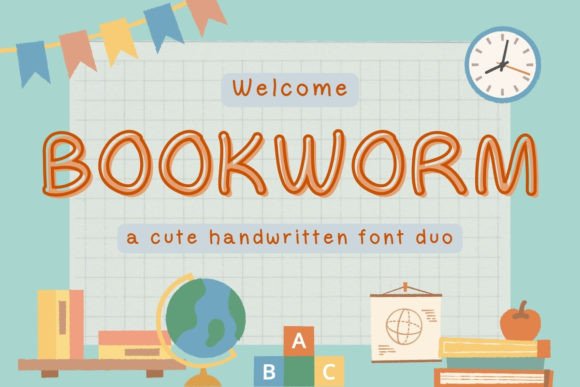
Introducing Bookworm Duo Font: The Playful and Childlike Font for Whimsical Designs
In the world of typography, fonts play a crucial role in conveying the tone and personality of a design. When it comes to creating engaging and youthful designs, the right font can make all the difference. This is where Bookworm Duo Font comes in – a playful and childlike font that captures the essence of school days and youthful fun. In this article, we’ll explore the features and benefits of Bookworm Duo Font, and why it’s the perfect choice for children’s books, educational materials, and playful designs.
The Inspiration Behind Bookworm Duo Font
Bookworm Duo Font is inspired by the nostalgia of school days and the joy of learning. The font’s creator aimed to design a typeface that would evoke a sense of playfulness and whimsy, reminiscent of childhood memories. The result is a font that is both cute and engaging, perfect for designs that require a touch of youthful energy.
Key Features of Bookworm Duo Font
So, what makes Bookworm Duo Font so special? Here are some of its key features:
- Playful and childlike design: Bookworm Duo Font boasts a playful and childlike design that is sure to capture the attention of your audience.
- Handwritten style: The font features a handwritten style that gives it a personal and organic feel.
- Whimsical and engaging: Bookworm Duo Font is perfect for designs that require a touch of whimsy and playfulness.
- Perfect for children’s books and educational materials: The font’s design makes it an excellent choice for children’s books, educational materials, and playful designs.
Use Cases for Bookworm Duo Font
Bookworm Duo Font is a versatile font that can be used in a variety of design projects. Here are some use cases where the font shines:
- Children’s books: Bookworm Duo Font is perfect for creating engaging and interactive children’s books that require a playful touch.
- Educational materials: The font’s childlike design makes it an excellent choice for educational materials, such as worksheets, activity sheets, and educational posters.
- Playful designs: Bookworm Duo Font can be used in a variety of playful designs, such as posters, flyers, and social media graphics.
Benefits of Using Bookworm Duo Font
So, why should you choose Bookworm Duo Font for your design projects? Here are some benefits of using the font:
- Evokes a sense of nostalgia: Bookworm Duo Font’s playful design evokes a sense of nostalgia and childhood memories.
- Increases engagement: The font’s whimsical design is sure to capture the attention of your audience and increase engagement.
- Perfect for youthful designs: Bookworm Duo Font is perfect for designs that require a youthful and playful touch.
- Easily readable: The font’s clear and concise design makes it easily readable, even for younger audiences.
In conclusion, Bookworm Duo Font is a playful and childlike font that captures the essence of school days and youthful fun. With its handwritten style and whimsical design, it’s perfect for children’s books, educational materials, and playful designs. Whether you’re a designer, educator, or simply someone looking for a fun and engaging font, Bookworm Duo Font is the perfect choice. So why not give it a try and let your imagination run wild?
- What is Bookworm Duo Font?: Bookworm Duo Font is a playful and childlike font that captures the essence of school days and youthful fun.